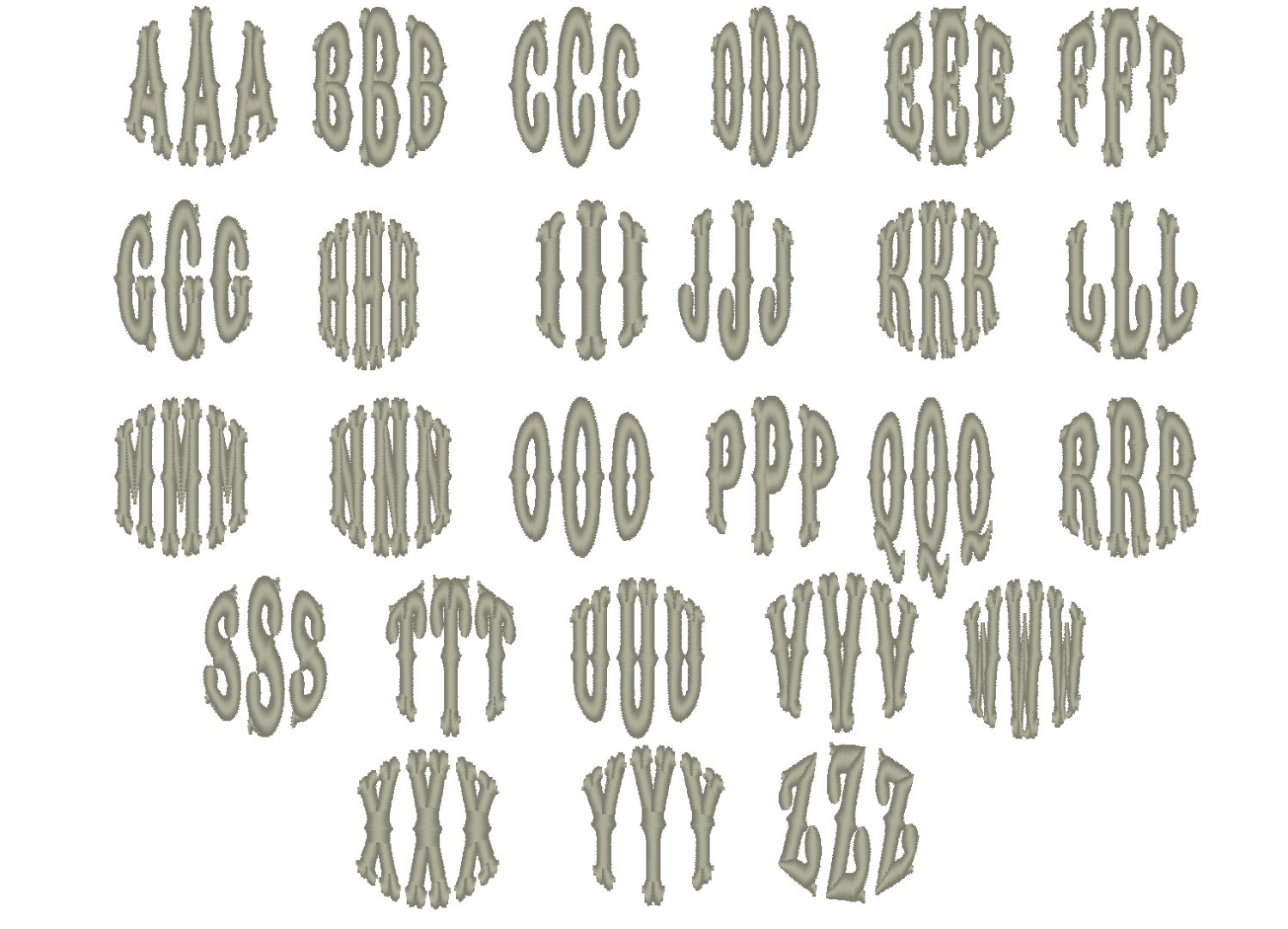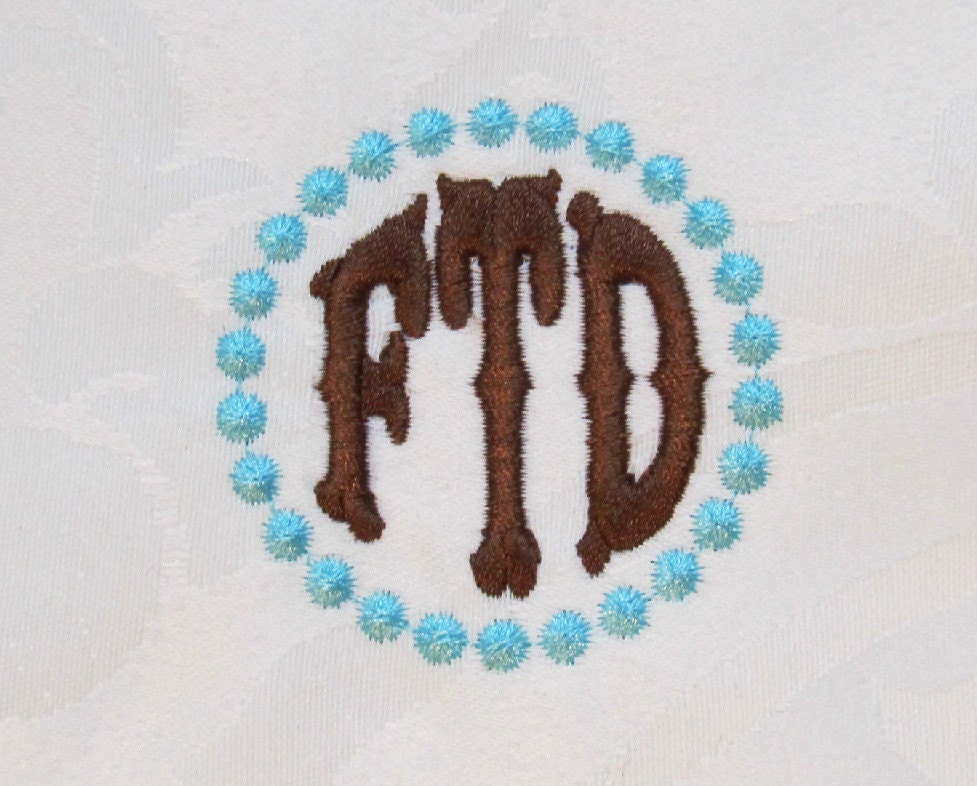
Circle Monogram, rodeo circle Baby Boy Western Embroidery Font Machine Embroidery assorted sizes, Circe frame and complete 3 letter monogram
Circle frame
Font
This set includes 78 uppercase letters for a complete 3 letter monogram in a flat stitch or embroidery fill.
When put together this total monogram will fit inside of a 4x4 hoop.